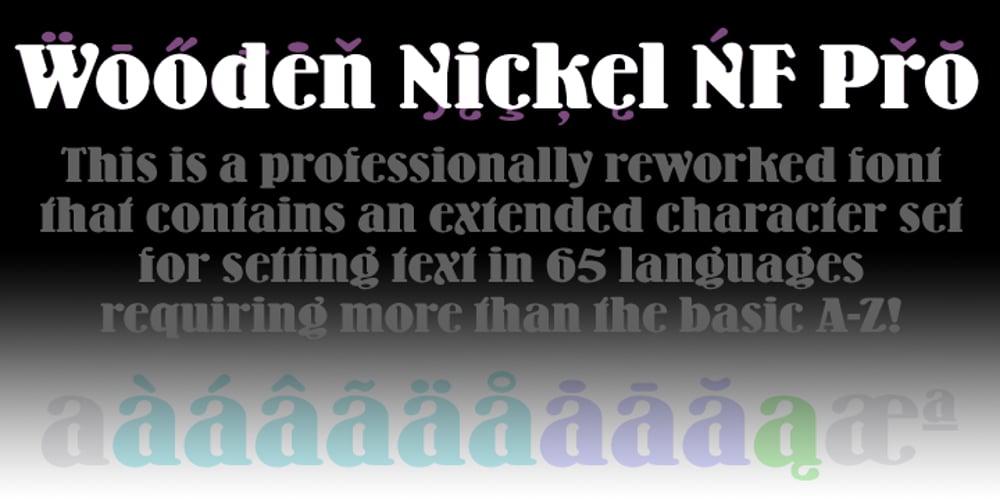
Wooden Nickel NF Pro Font Family was designed by Nick Curtis, Roger S. Nelsson and published by CheapProFonts. Wooden Nickel NF Pro contains 1 styles and family package options. A nice, black display face – for a retro/western poster look. I have kept the quirky “t”, increased the dot above “i” and “j” slightly, improved the spacing/kerning and modified/added all the usual diacritics. A pretty easy reworking of a good quality font. Nick Curtis says: “An old favorite, Bernhard Antique Bold Condensed, cleaned up and fattened up. Warm, charming, personable … suitable for any occasion.” ALL fonts from CheapProFonts have very extensive language support: They contain some unusual diacritic letters (some of which are contained in the Latin Extended-B Unicode block) supporting: Cornish, Filipino (Tagalog), Guarani, Luxembourgian, Malagasy, Romanian, Ulithian and Welsh. They also contain all glyphs in the Latin Extended-A Unicode block (which among others cover the Central European and Baltic areas) supporting: Afrikaans, Belarusian (Lacinka), Bosnian, Catalan, Chichewa, Croatian, Czech, Dutch, Esperanto, Greenlandic, Hungarian, Kashubian, Kurdish (Kurmanji), Latvian, Lithuanian, Maltese, Maori, Polish, Saami (Inari), Saami (North), Serbian (latin), Slovak(ian), Slovene, Sorbian (Lower), Sorbian (Upper), Turkish and Turkmen. And they of course contain all the usual “western” glyphs supporting: Albanian, Basque, Breton, Chamorro, Danish, Estonian, Faroese, Finnish, French, Frisian, Galican, German, Icelandic, Indonesian, Irish (Gaelic), Italian, Northern Sotho, Norwegian, Occitan, Portuguese, Rhaeto-Romance, Sami (Lule), Sami (South), Scots (Gaelic), Spanish, Swedish, Tswana, Walloon and Yapese.